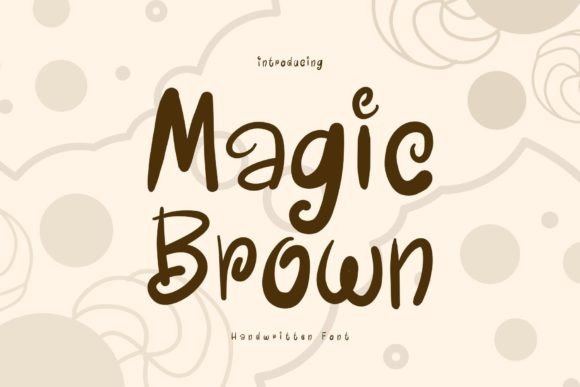
Welcome to the enchanting world of Magic Brown Font, a captivating script font family crafted to bring a touch of whimsy and authenticity to your creative endeavors. Inspired by the playful spirit of handwritten notes, Magic Brown dances across the page with a charming irregularity, reminiscent of heartfelt letters penned by loved ones.
With its playful curves and lively strokes, Magic Brown Font exudes a sense of joy and spontaneity, making it the perfect companion for projects that demand a personal touch. Whether you're designing wedding invitations, crafting heartfelt greeting cards, or creating eye-catching logos and branding, Magic Brown Font adds a touch of magic that elevates your designs to new heights.
Imagine your wedding invitation, adorned with the graceful strokes of Magic Brown Font, inviting your guests to a celebration filled with laughter, love, and unforgettable moments. Its elegant script adds a touch of sophistication, while the playful undertones hint at the joy and excitement of the upcoming event.
Unleash your creativity with Magic Brown Font and let your designs blossom into masterpieces. Its versatility knows no bounds, extending from blog posts and social media graphics to branding materials, posters, and product packaging. Each letter dances across the screen, captivating the eyes and inviting readers to embark on a journey of imagination.